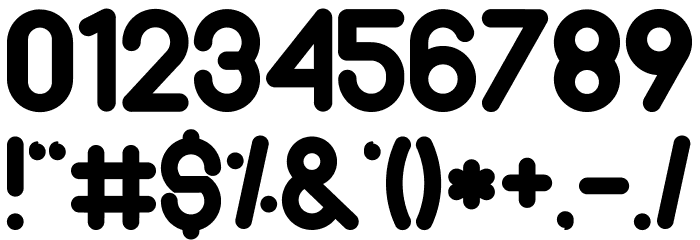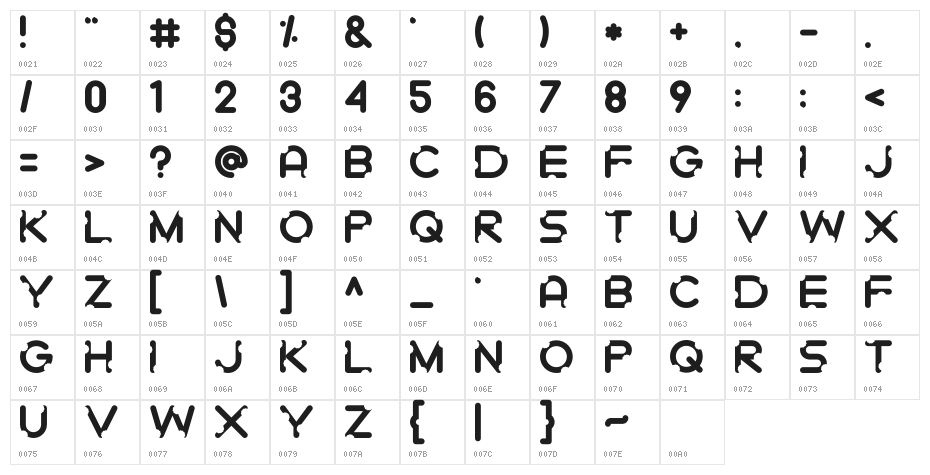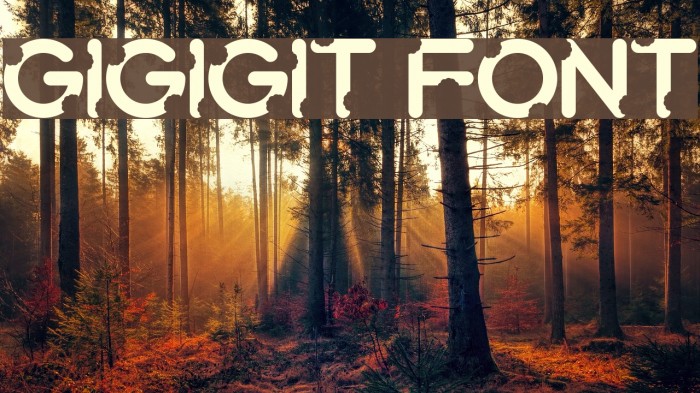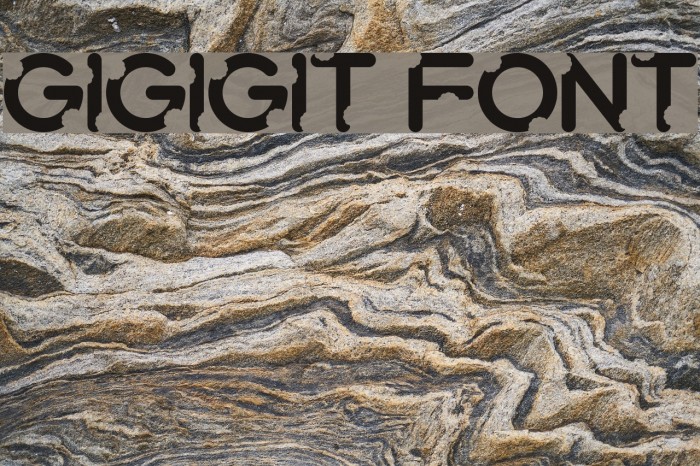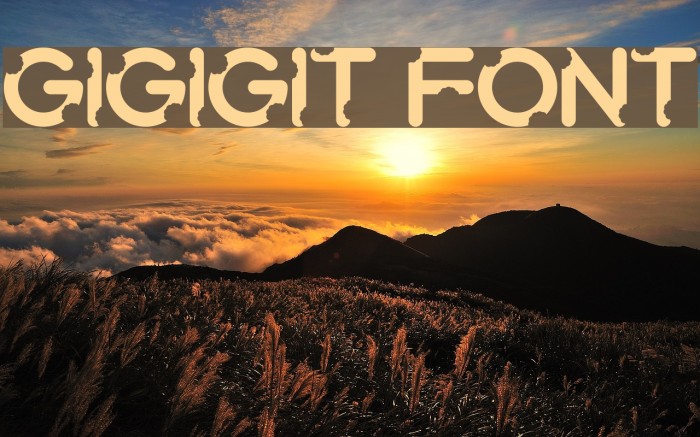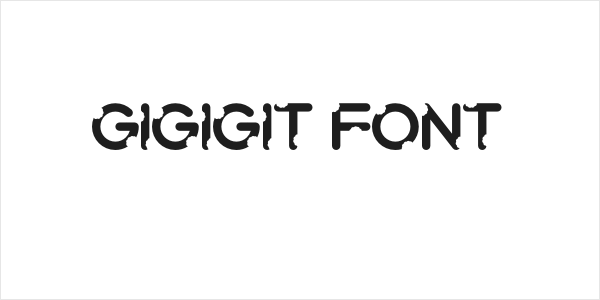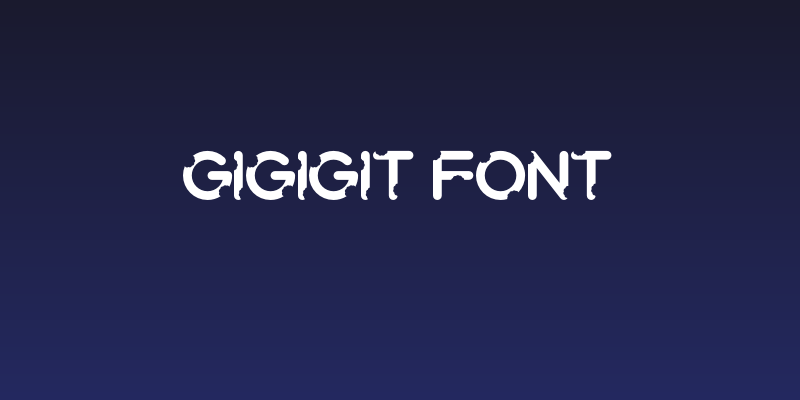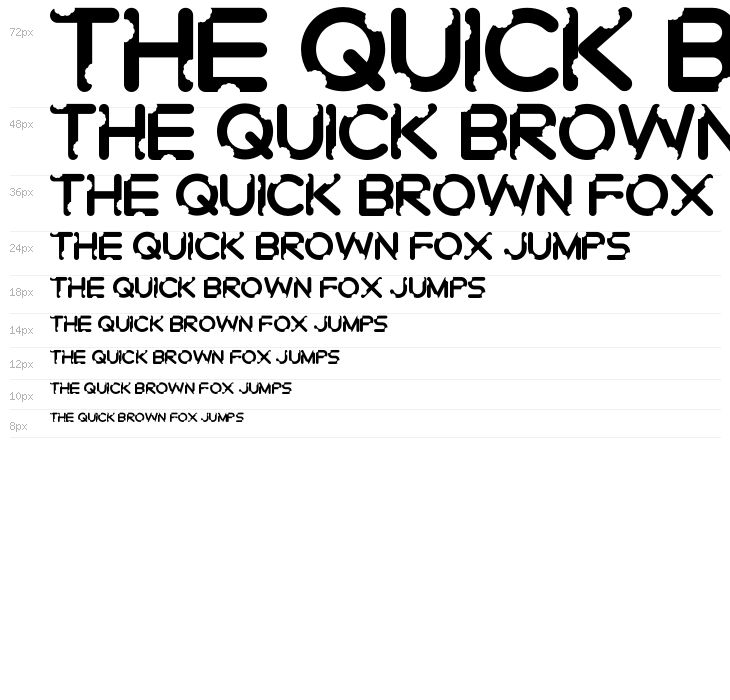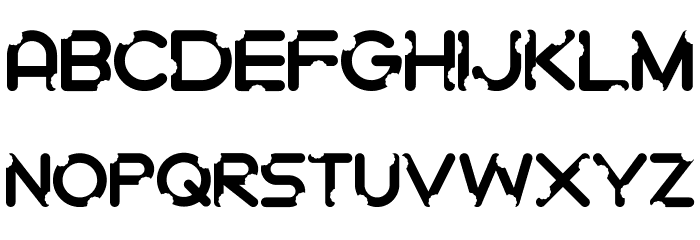
Gigigit Font Font
Gigigit Font Description
This font features a bold and futuristic design with a unique geometric style. The characters are constructed with a combination of straight lines and rounded edges, creating a distinct and modern appearance. The uppercase letters are uniform in height, while the lowercase letters maintain a consistent style that complements the uppercase set. The numbers are bold and clear, making them easily readable. Special characters are designed with the same geometric flair, ensuring a cohesive look across all elements. This font's striking design makes it suitable for projects that require a contemporary and eye-catching typeface.
| Proposed Projects | Ideal for technology branding, sci-fi posters, video game titles, and modern advertising. |